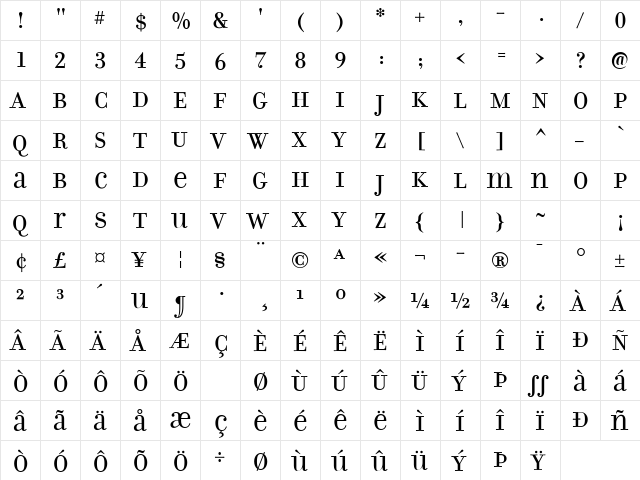
FilosofiaUnicase Roman
FilosofiaUnicase offers clean, dependable letterforms without strong stylistic allegiance, making it a practical choice for designers who need flexibility.